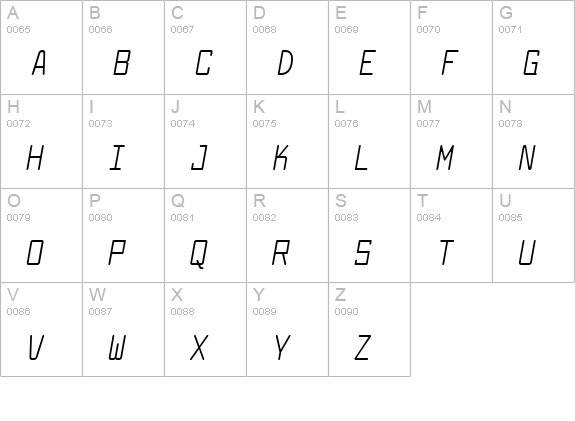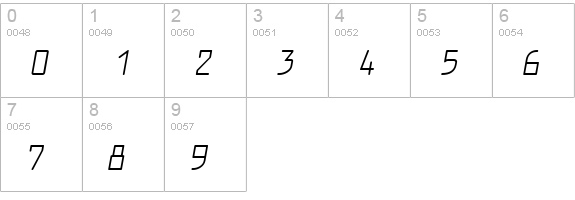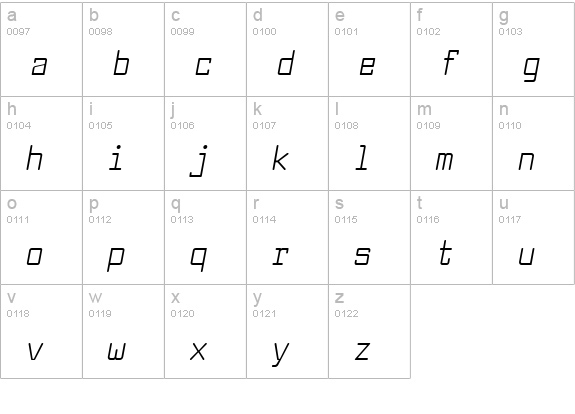
Larabiefont Condensed Italic is a distinctive, condensed-width, italic variant in the Larabiefont typeface family \xE2\x80\x94 well suited to design and typography projects.
Larabiefont Condensed Italic is a sleek and modern typeface that exudes elegance and sophistication. Its unique italicized design adds a touch of flair to any project, making it perfect for both professional and creative use. With its condensed form, this font is space-efficient without sacrificing readability, making it ideal for headlines, titles, and other display purposes. What sets Larabiefont Condensed Italic apart is not only its striking design but also the fact that it is completely free to use. That's right, you can download this beautiful font at no cost from FontsMarket.com. Whether you're working on a personal project or a commercial endeavor, this versatile font is sure to elevate your design to the next level. Don't miss out on the opportunity to enhance your work with Larabiefont Condensed Italic – download it today and unleash your creativity!